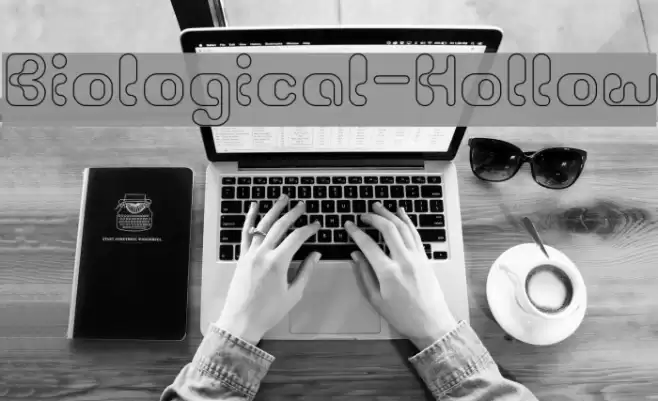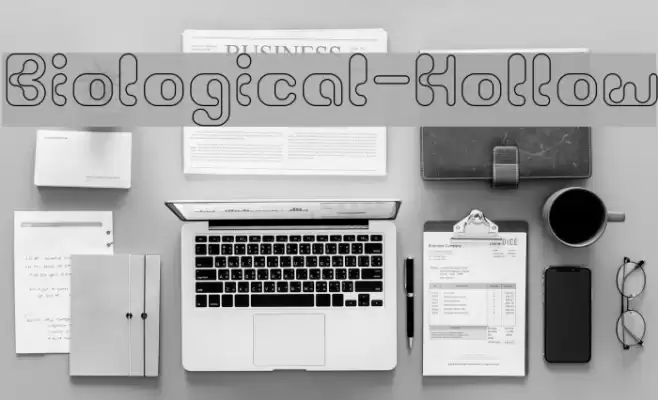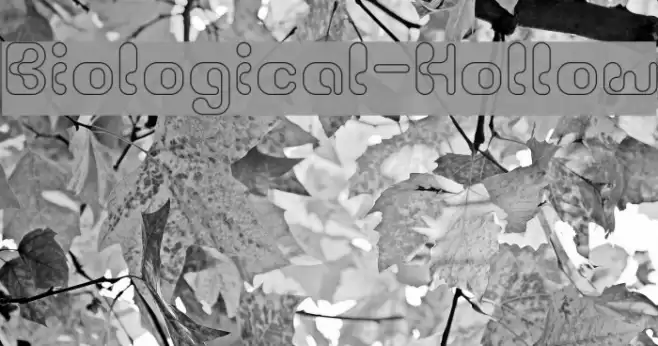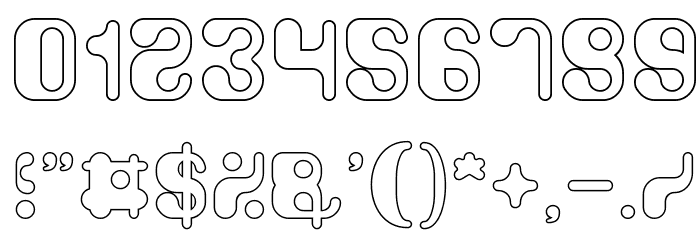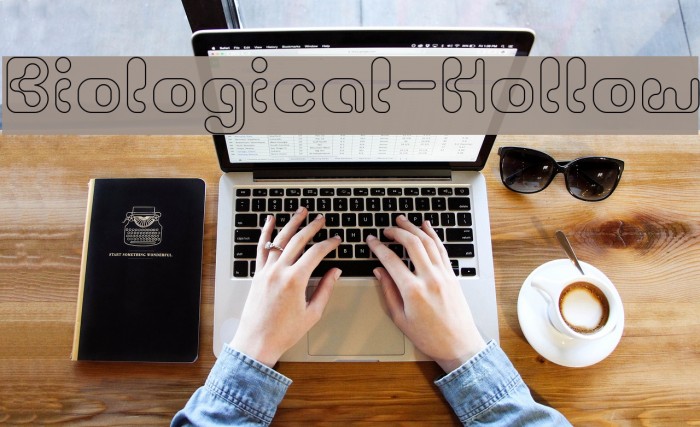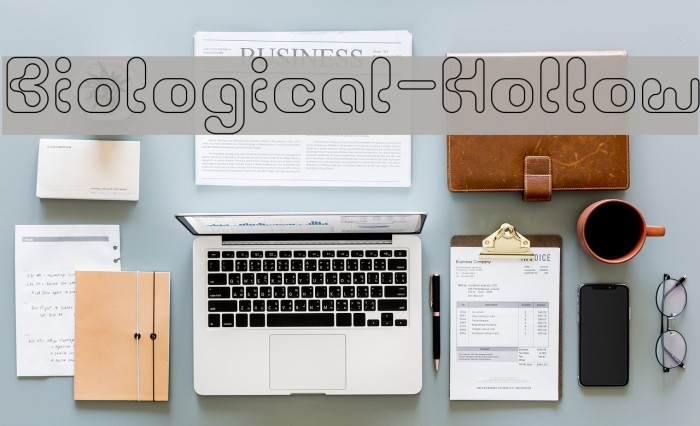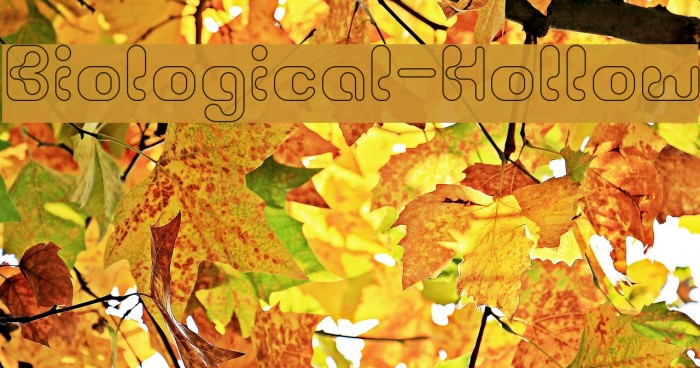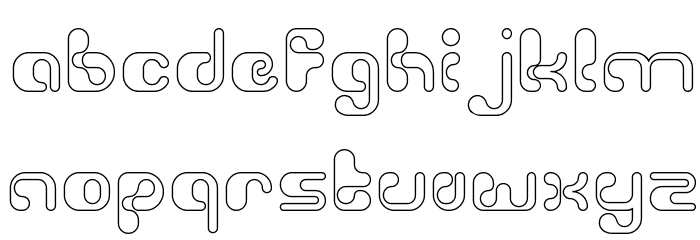
Biological-Hollow Font
Biological-Hollow Description
This font features a unique hollow design with rounded edges and a futuristic aesthetic. Each character is outlined, creating a sense of depth and dimension. The uppercase and lowercase letters maintain a consistent style, with smooth curves and a playful, organic feel. The numbers and special characters follow the same design principles, ensuring a cohesive look across all glyphs. This font's distinct appearance makes it suitable for creative and modern projects, where a bold statement is desired.
A futuristic, hollow font with rounded edges and a playful, organic style from Uncategorized fonts.
- Proposed Projects: Ideal for sci-fi themed designs, modern branding, digital art, and creative posters.